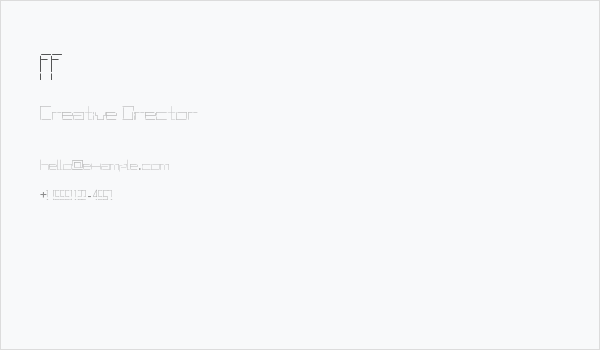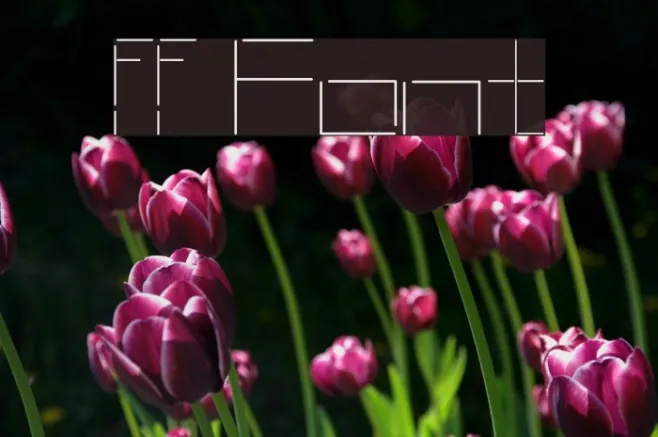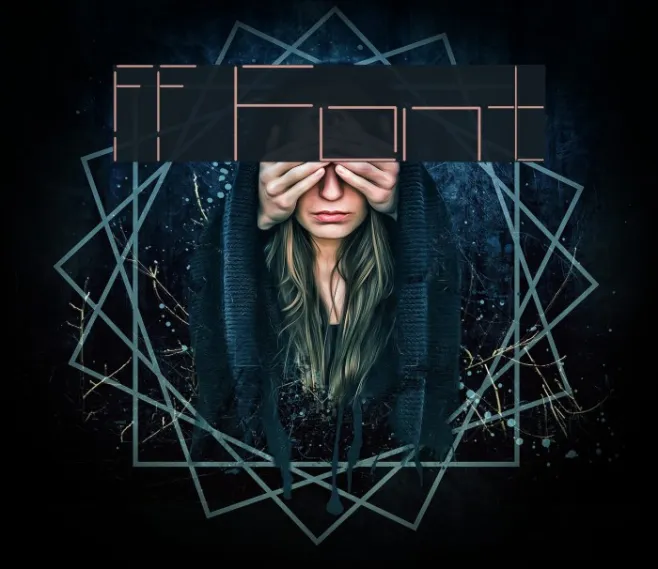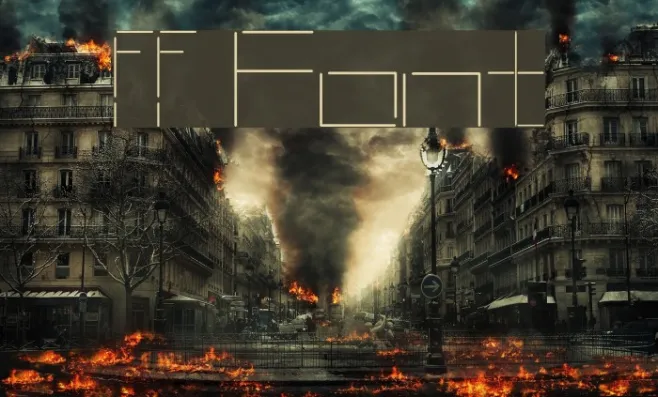
ff Font
ff Description
This font features a geometric and futuristic design, characterized by its linear and angular structure. Each character is composed of straight lines and sharp angles, giving it a highly modern and technical appearance. The uppercase and lowercase letters maintain a consistent height, with minimal variation in stroke width, creating a uniform and cohesive look. The numerals and special characters follow the same design principles, ensuring a seamless integration across all elements. This font's unique style makes it stand out, offering a distinct visual appeal that is both contemporary and innovative.
| Use Case | Logos, Headlines, Digital interfaces |
| Proposed Projects | Ideal for technology branding, modern art projects, sci-fi themed designs, and digital interfaces. |